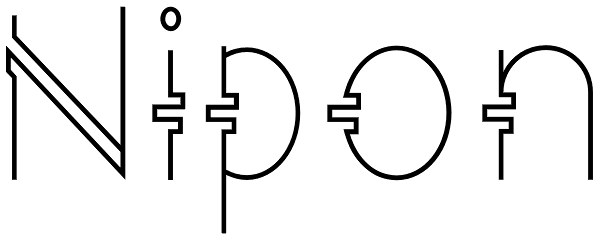
Nipon
Nipon has an affiliation with the Far East. The first character I designed for this alphabet was the capital P. The stepped thin lines are linking to the Japanese characters and the circle shape is a classic Japanese element which means literally...